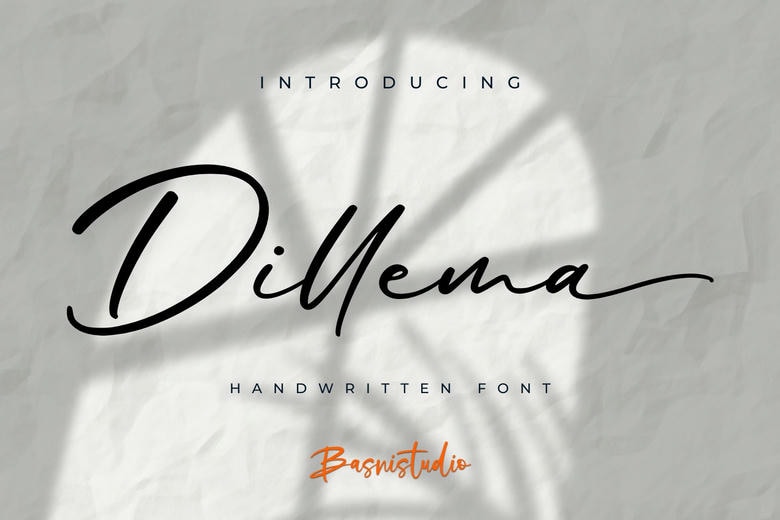
Dillema Font
Dillema is a script font handwritten inspired with natural feels and strokes. It really looks like handwriting and very pleasant and calm lines make the text look individual and friendly. Great as notes, invitations or anything need to be written creatively!
Dillema Handwritten Script Font